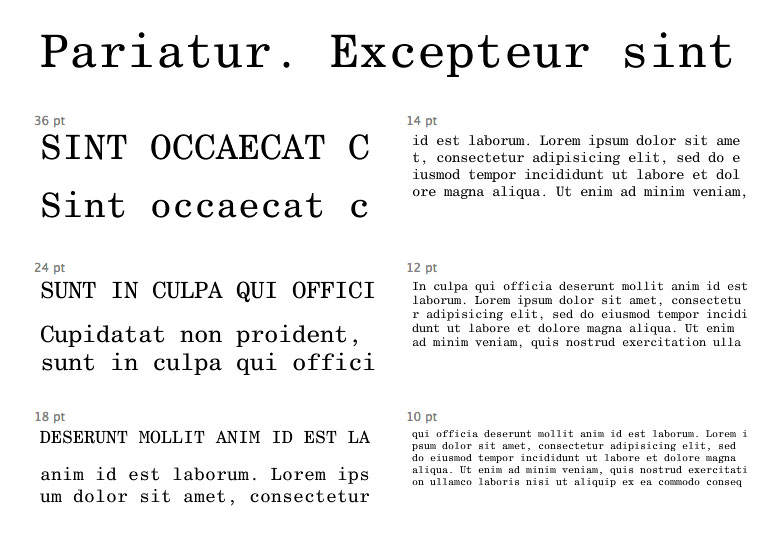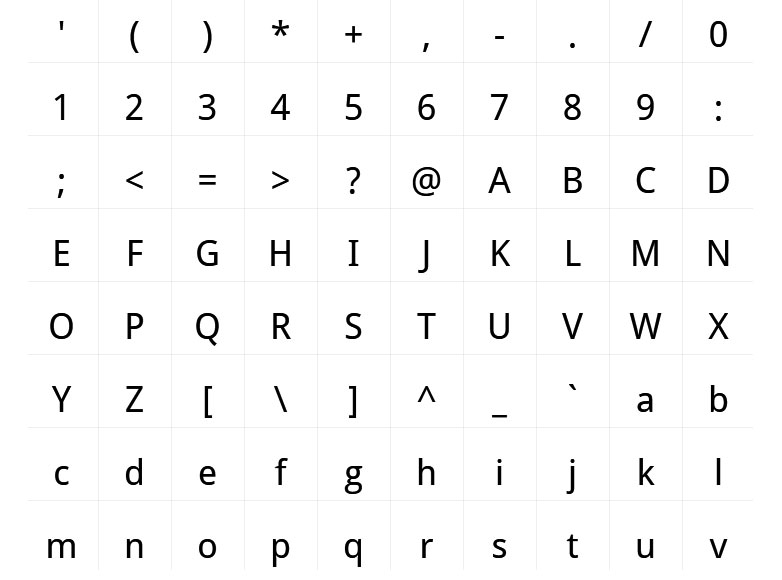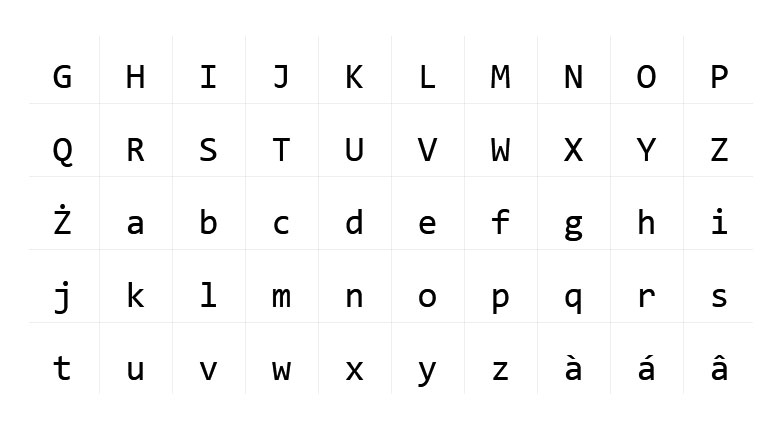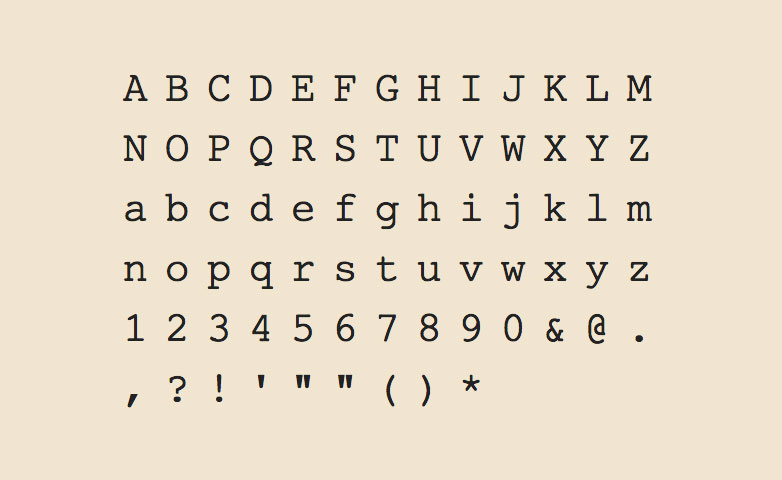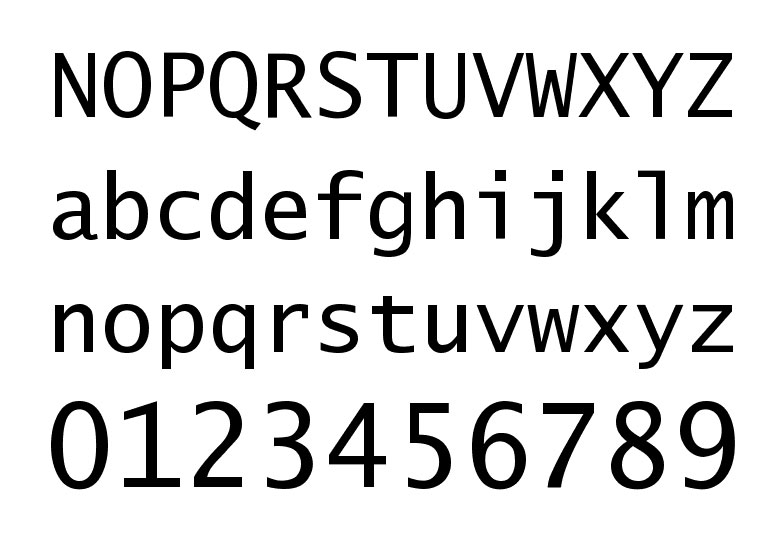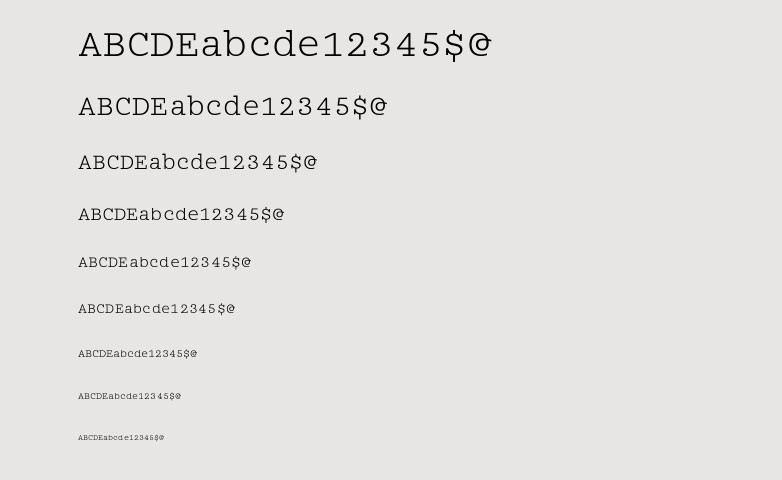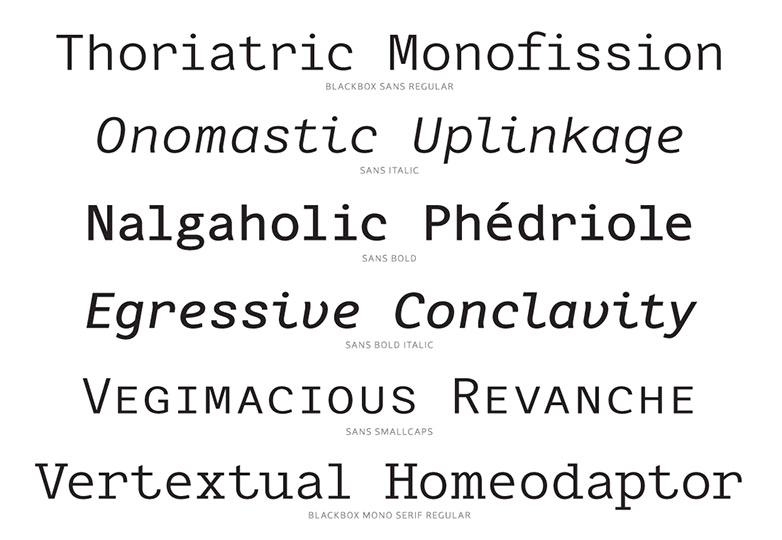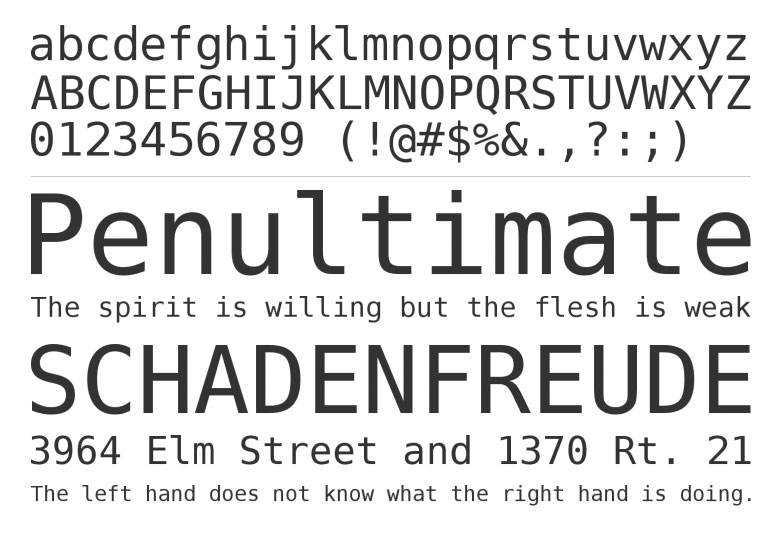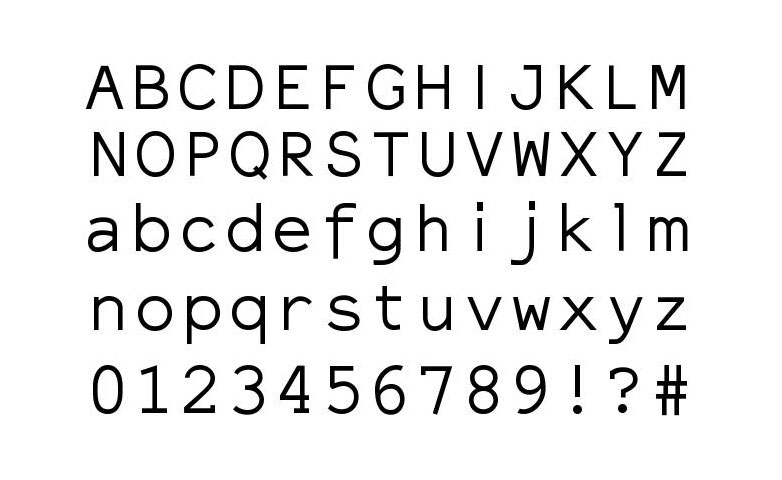
The pinnacle of web development is hand-coding. No other approach delivers the same bespoke quality, performance and all round job-well-done-ness as rolling up your sleeves and digging into source code.
As a result, most of us spend all day everyday staring at markup, style sheets, and assorted server-side code. Despite this most of us leave our applications with their default settings. But with a simple change of font, scanning our code becomes far simpler.
Selecting an appropriate font for coding is a unique task, in that the only audience you have to consider is yourself. The only thing that counts is what works for you.
The challenge is that coding is unlike most written formats; whilst most text has fairly regular line lengths, even when set ragged, the nature of our programming languages means that line lengths vary from a single character up to many hundreds per line; you need to select a font that is easily scannable with distinct individual letters.
You also need to ensure that your font has a full complement of mathematical symbols, brackets and punctuation; any font that covers basic latin is usually enough.
Finally, you need to ensure that the characters are sufficiently distinct at a small point size. Common problems are distinguishing the number ‘1’ from the lowercase ‘l’ and the uppercase ‘O’ from the number 0.
The most common choices are monospaced fonts, as they create predictable line lengths and are traditionally used in technical data. However, the only rule is that you select a font that works for you. Pick the right one and your coding will be faster, easier to read back and less error prone.
Ubuntu Mono (free)
Century Schoolbook Monospaced ($24.75)
Droid Sans Pro Regular ($79)
Consolas ($35)
Trim Mono Light ($54 approx.)
Average Mono (free)
Excaliber Monospace (free)
Briem Mono ($50 approx.)
Blackbox Mono Superset ($149)
Kettler Regular ($39)
Nimbus Monospace ($19.95)
Pica 10 Pitch ($34 approx.)
Prestige Elite Regular ($40 approx.)
ITC Souvenir Mono Light ($48 approx.)
Typewriter Elite Regular ($29)
Typiqal Mono ($29)
Monospace Typewriter (free)
Isonorm Monospaced Regular ($54 approx.)
Hermit (donation)
Inconsolata (free)
Deja Vu Sans Mono (free)
Elronet Monospace (free)
Dina (free — Windows only)
Profont (free)
Monofur (free)